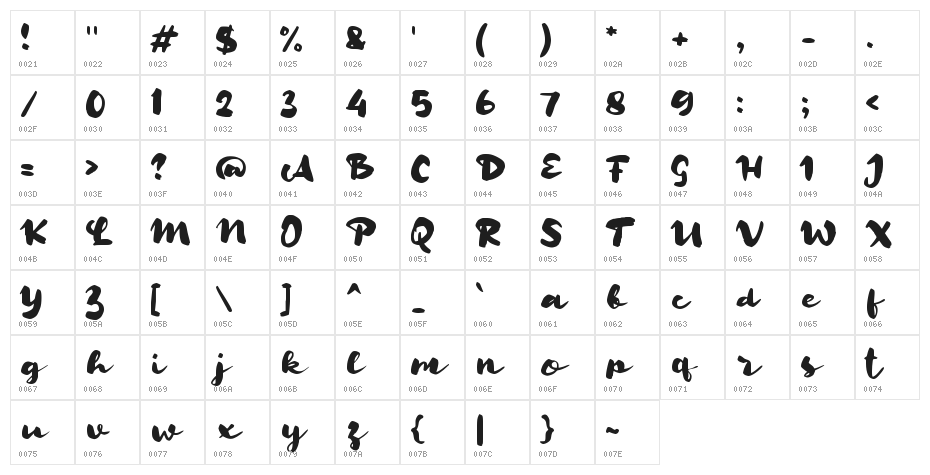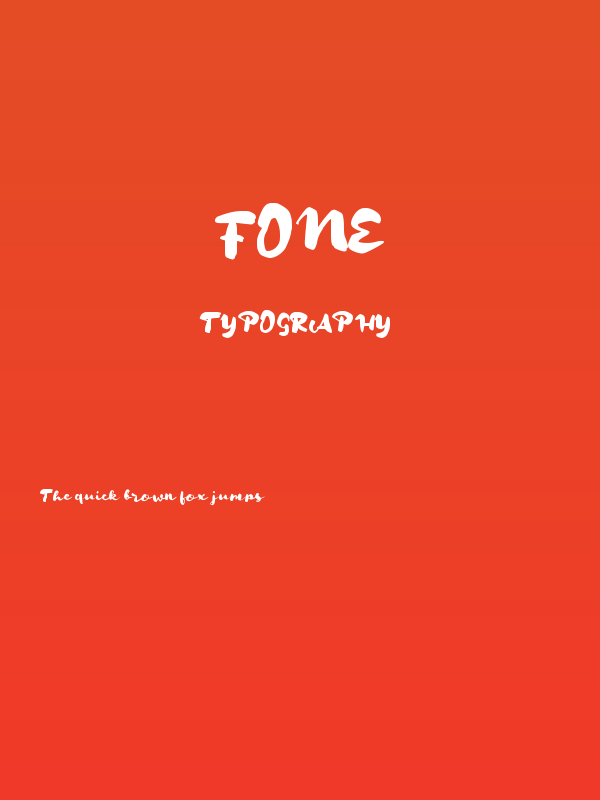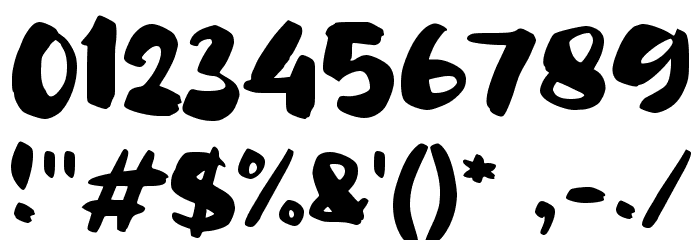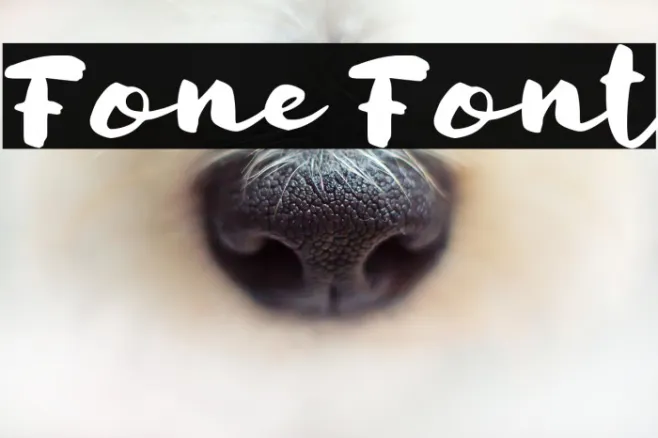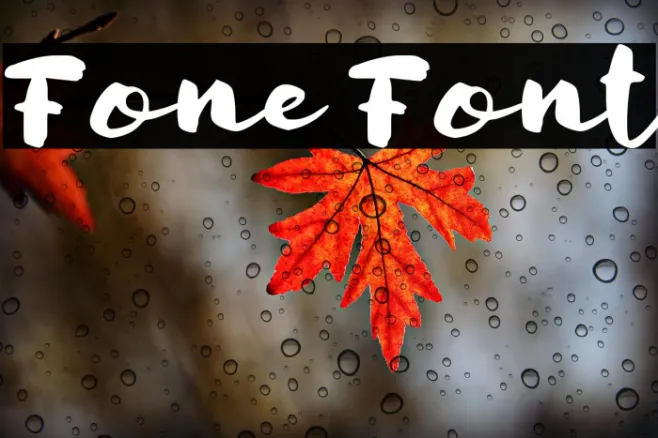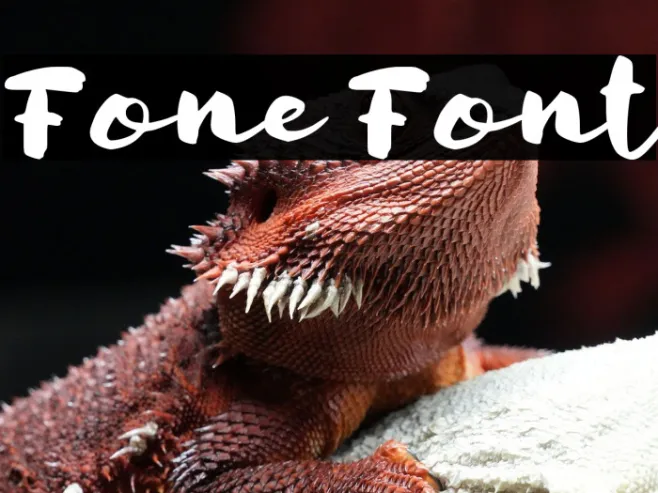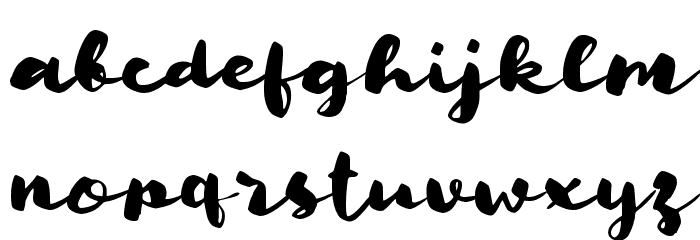
Fone Font
Fone Description
This font features a bold, expressive style with a handwritten appearance. The letters are characterized by thick strokes and a playful, dynamic flow, giving it a lively and energetic feel. The uppercase letters maintain a consistent height, while the lowercase letters exhibit a slight slant, enhancing the casual and informal aesthetic. The numerals are robust and maintain the same boldness as the letters, ensuring readability. Special characters are integrated seamlessly, maintaining the overall style. This font is ideal for projects that require a personal touch or a sense of creativity.